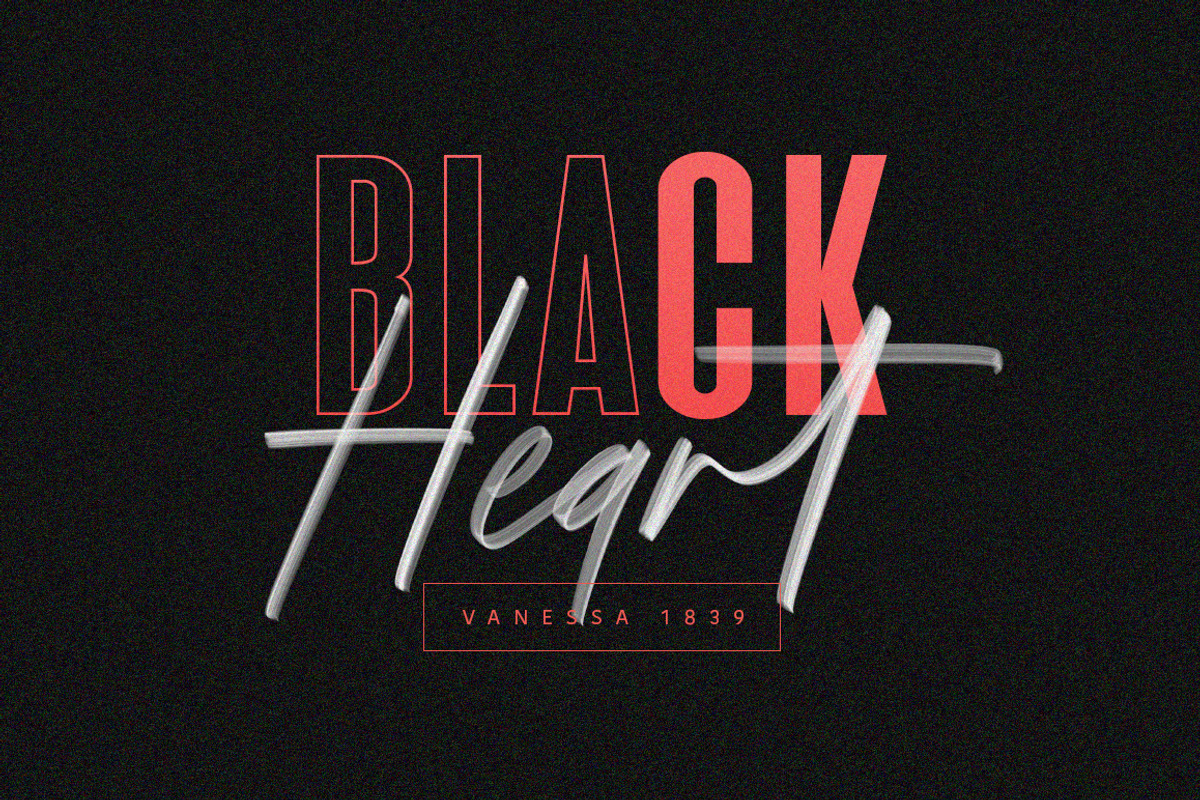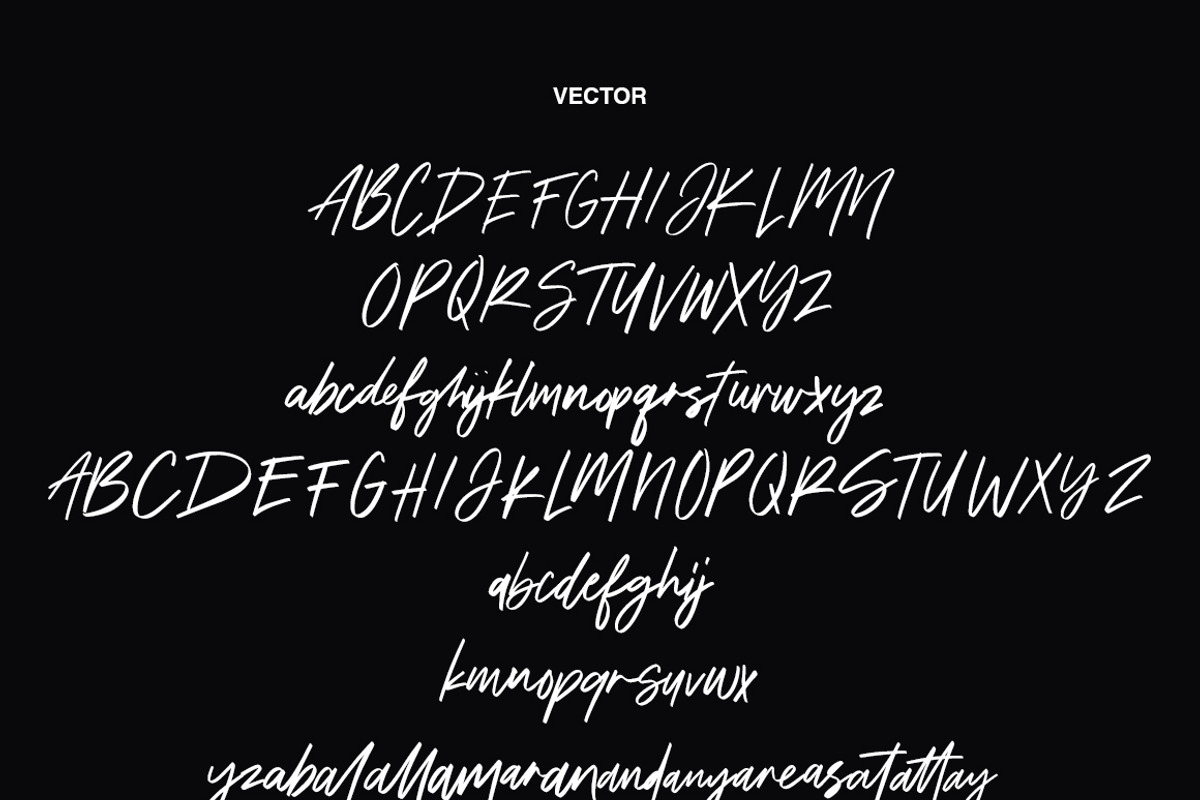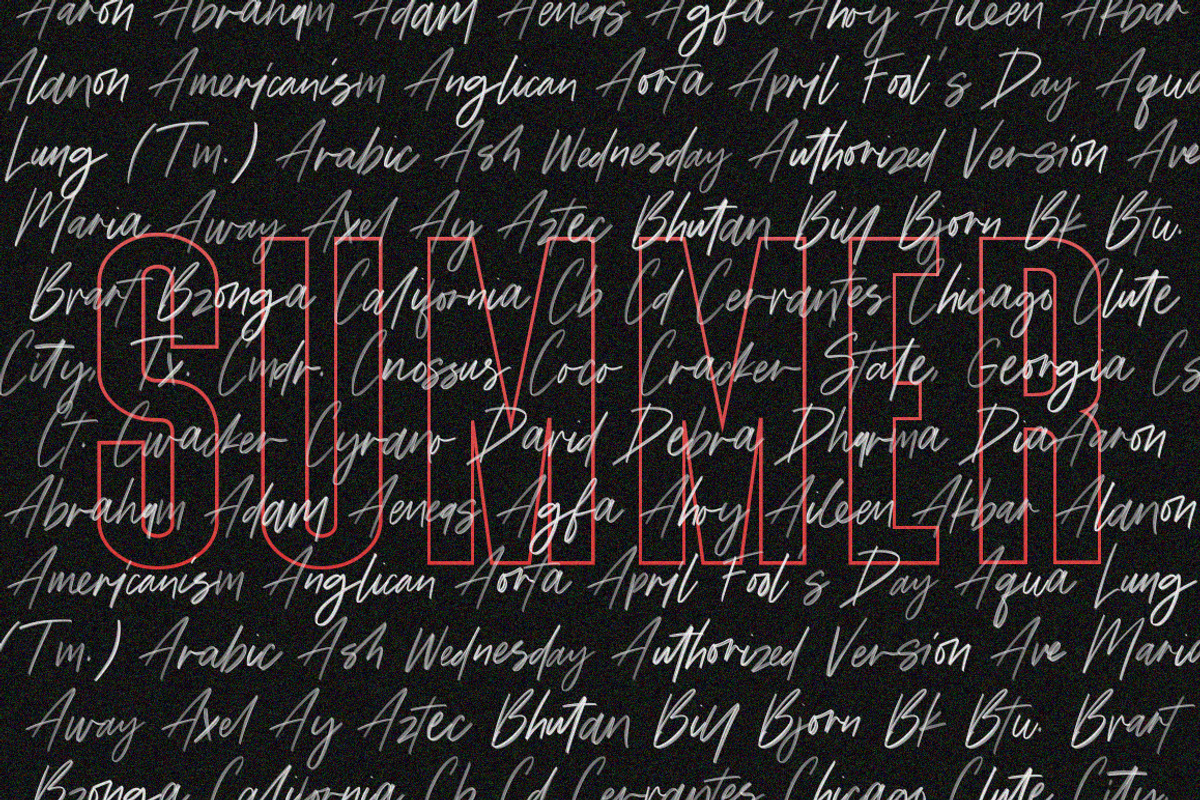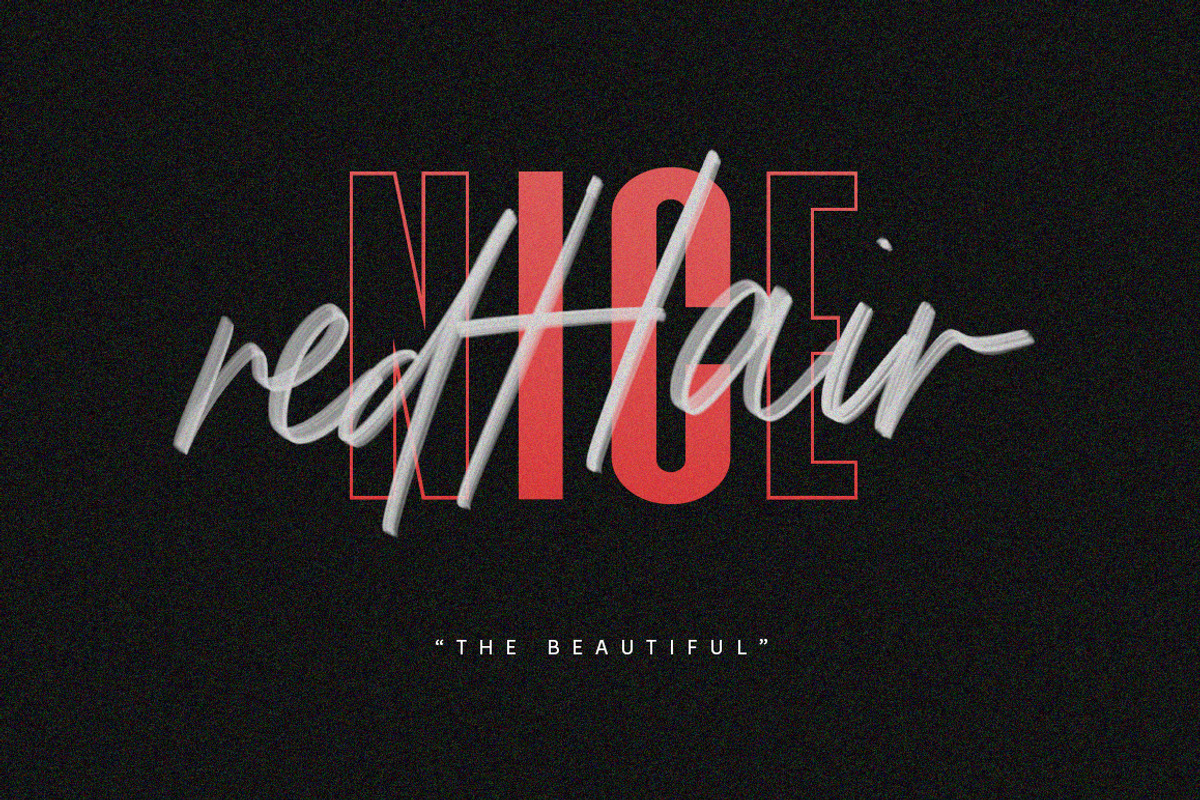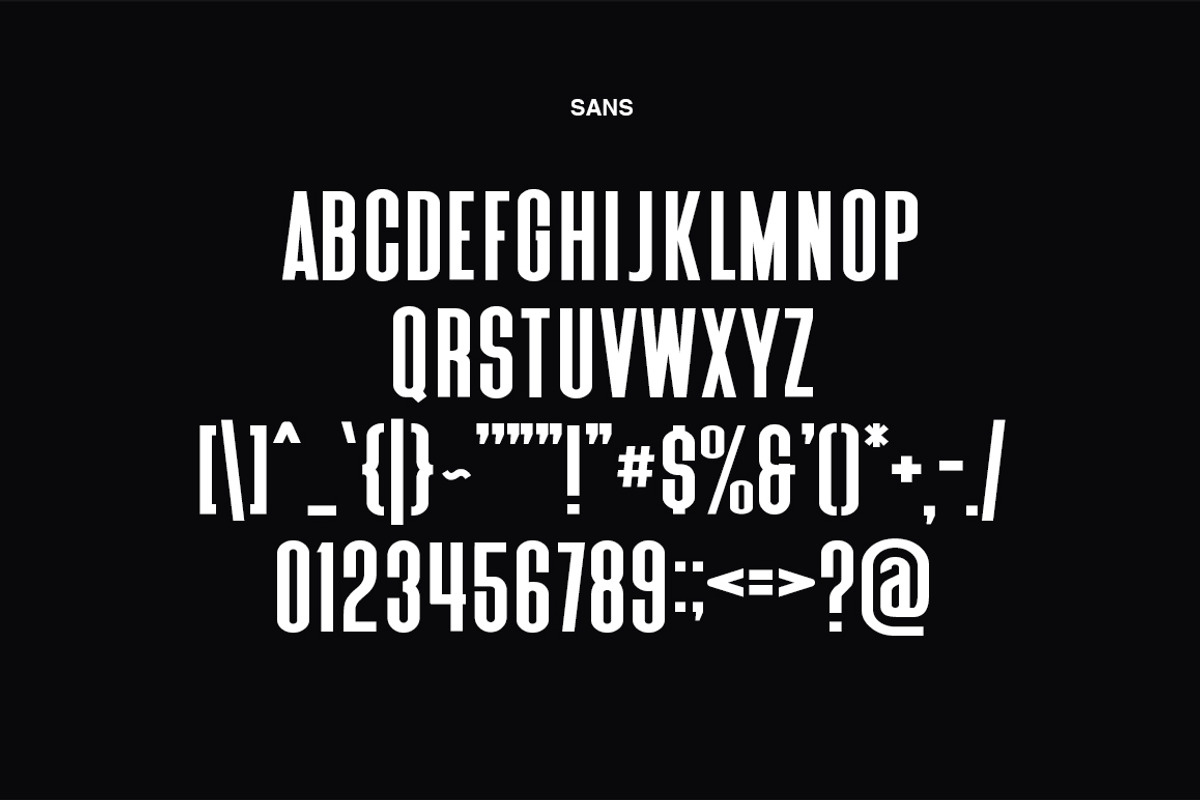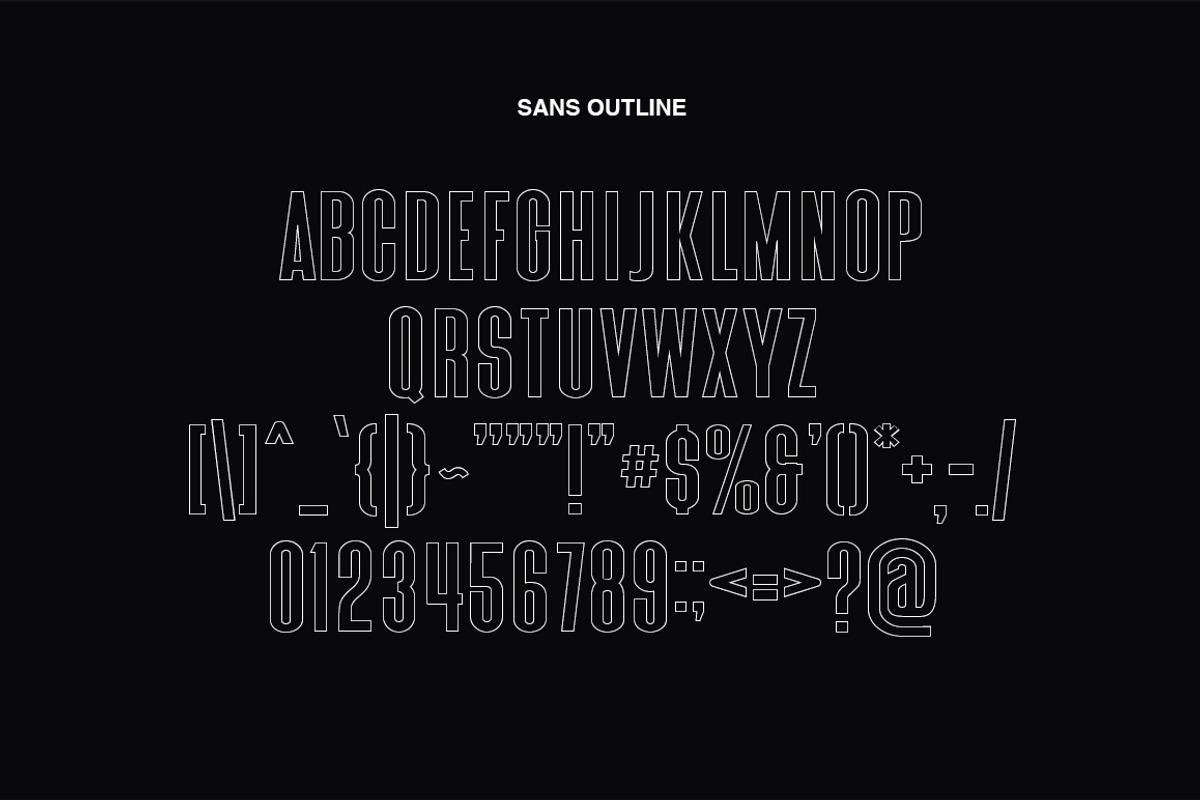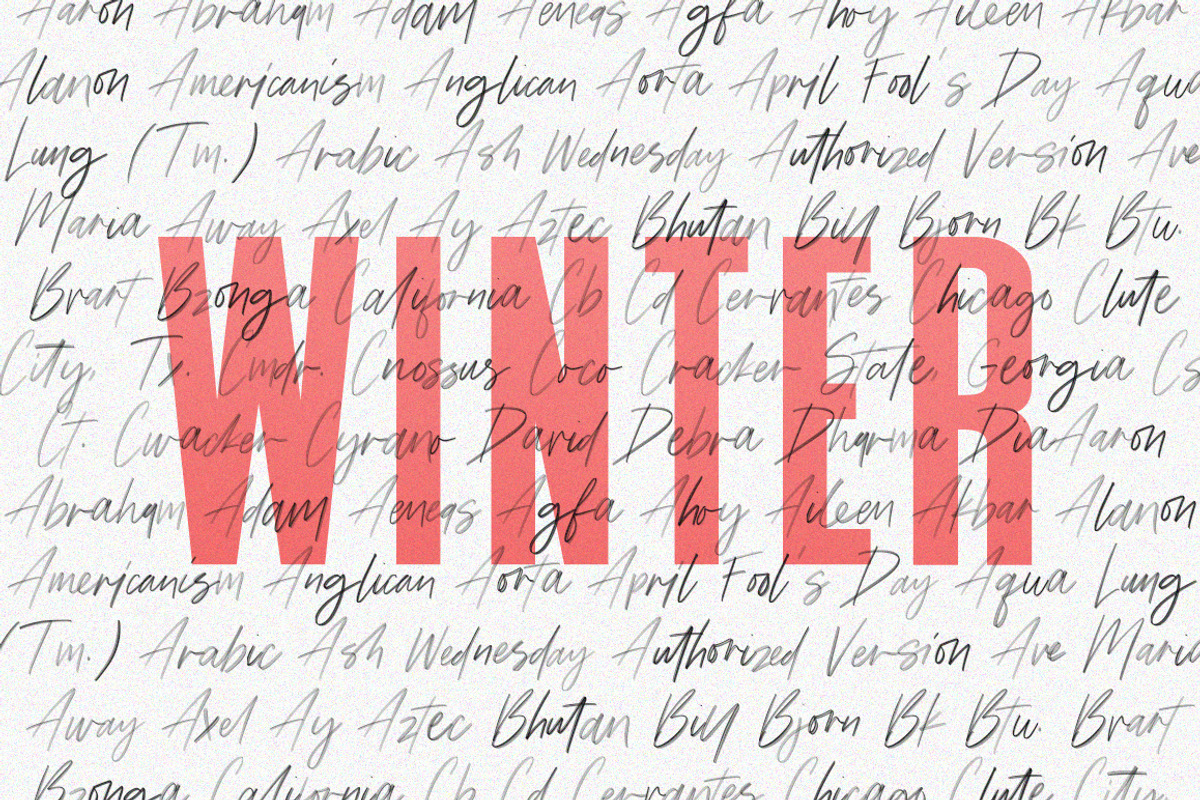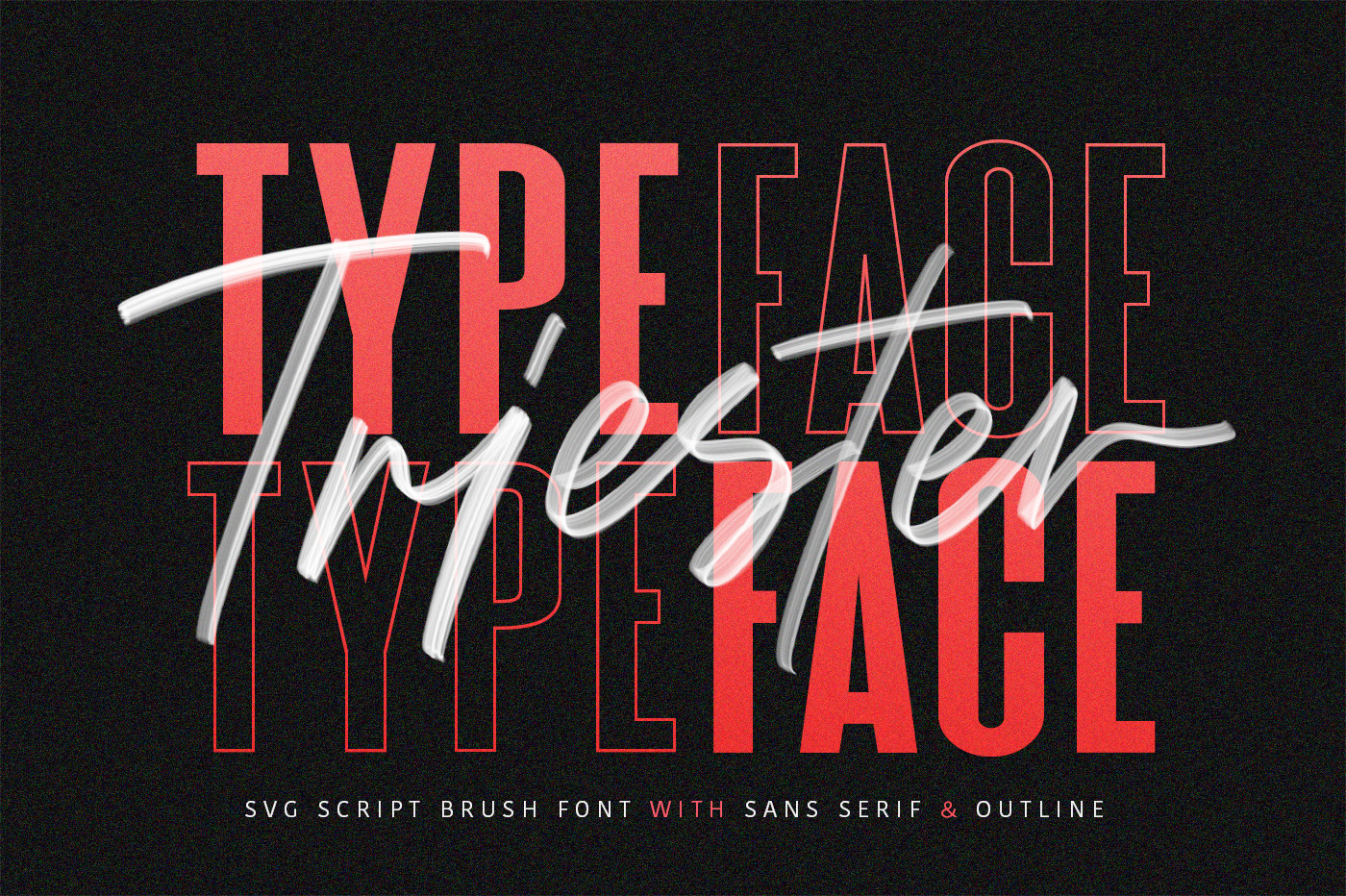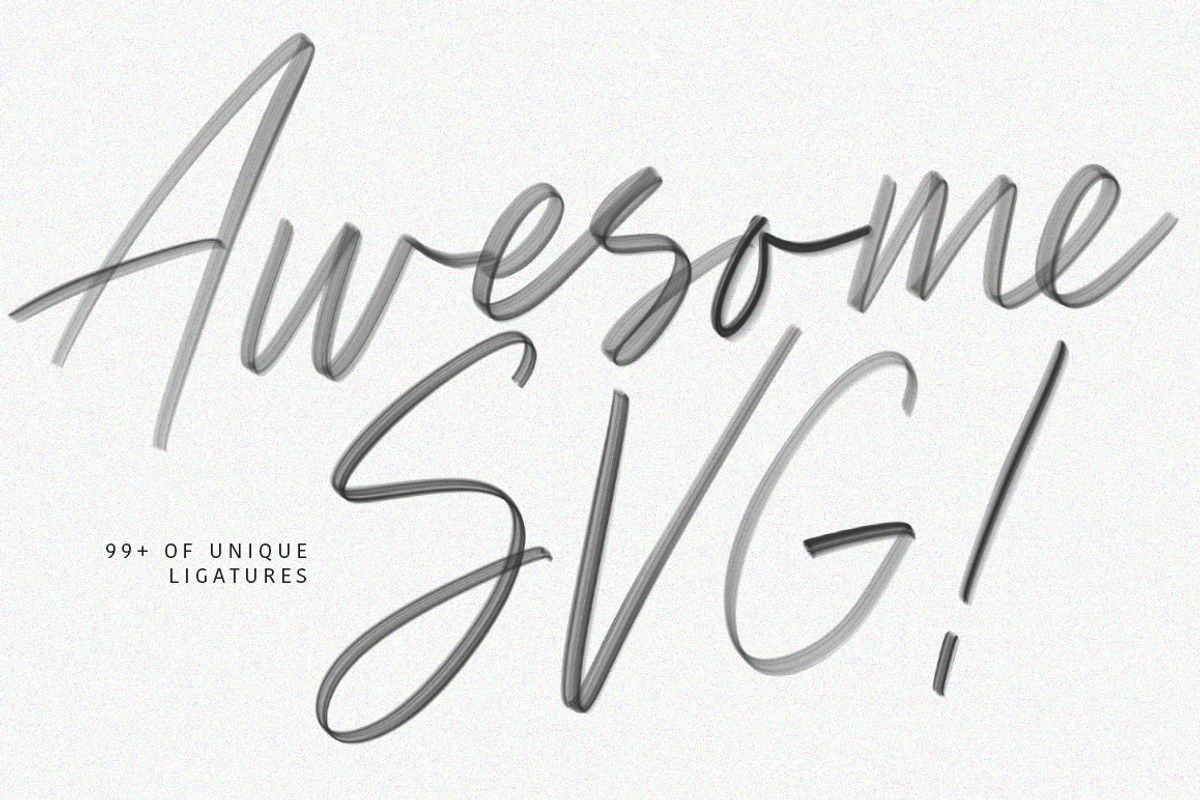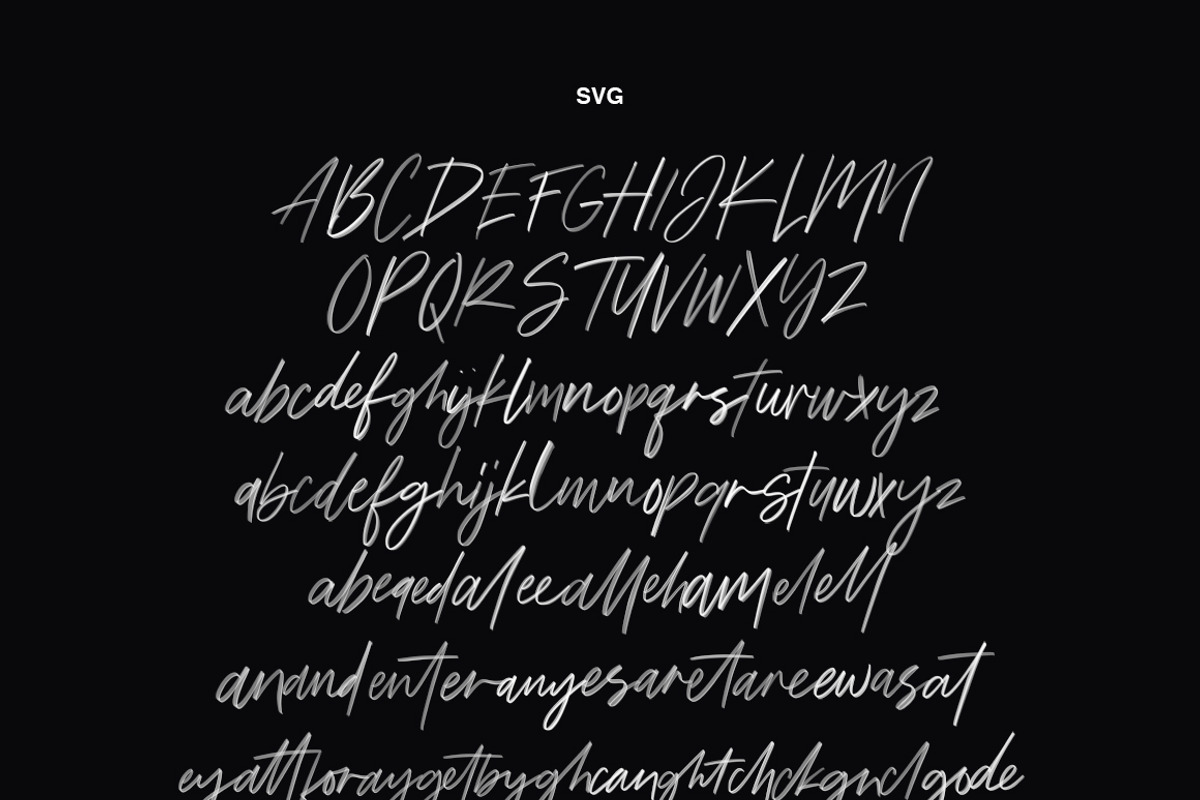
Triester SVG Brush Font Free Sans
Give your designs an authentic brush handcrafted feel. “Triester” is perfectly suited to signature, stationery, logo, typography quotes, magazine or book cover, website header, flyer, clothing, branding, packaging design and more.